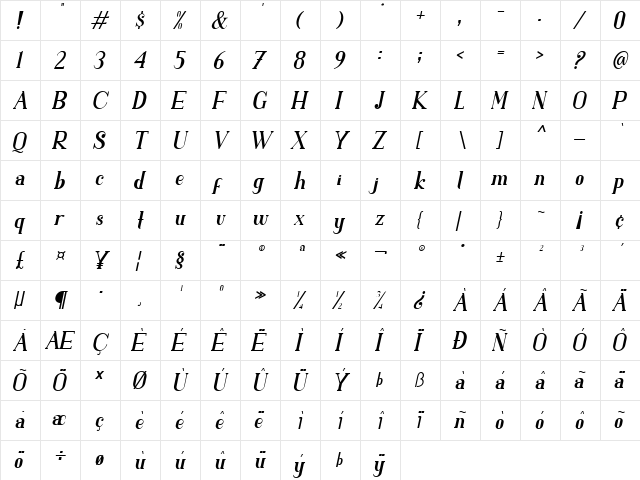
SINGGEL PARENT TYPE FACE Regular
Regular · AFREDO.FK ZULFIKAR ALI ·
Foundry AFREDO.FK
FoundryAFREDO.FK
DesignerZULFIKAR ALI
Design Context for SINGGEL PARENT TYPE FACE Typeface
SINGGEL PARENT TYPE FACE is a composed and adaptable typeface that performs quietly and consistently across a wide range of design contexts.